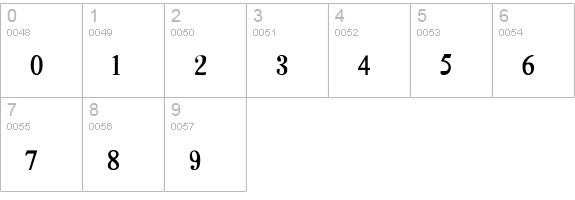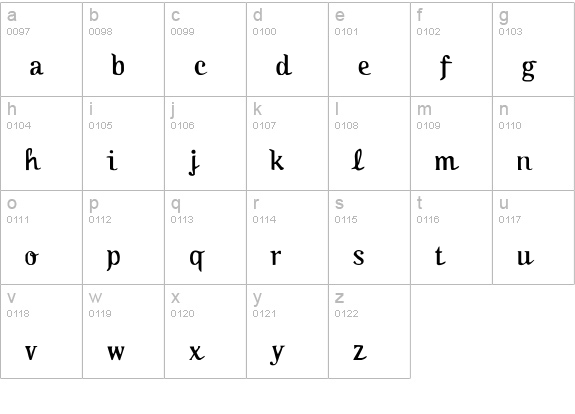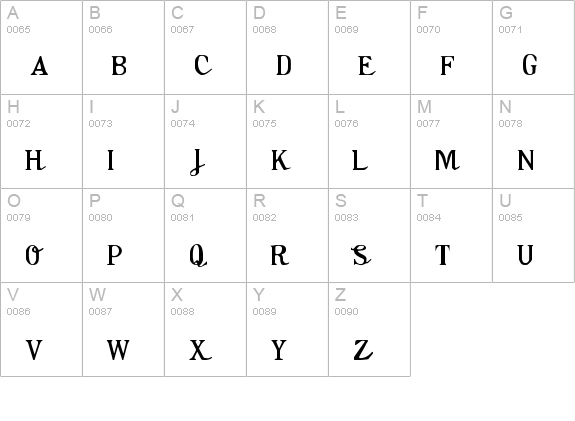
Oktoberfest Font Details
The Oktoberfest font is a bold and festive typeface perfect for capturing the spirit of the famous German beer festival. With its traditional and intricate design, this font exudes a sense of celebration and merriment, making it ideal for creating eye-catching banners, posters, and invitations for Oktoberfest-themed events. The unique blend of classic typography and modern flair gives this font a timeless quality that is sure to make a statement. Best of all, the Oktoberfest font is available for free download at FontsMarket.com, making it easily accessible for all your design needs. Whether you're crafting promotional materials for a local Oktoberfest celebration or simply want to add a touch of Bavarian charm to your designs, this font is a must-have addition to your collection. Download the Oktoberfest font today and bring a touch of German tradition to your next project!